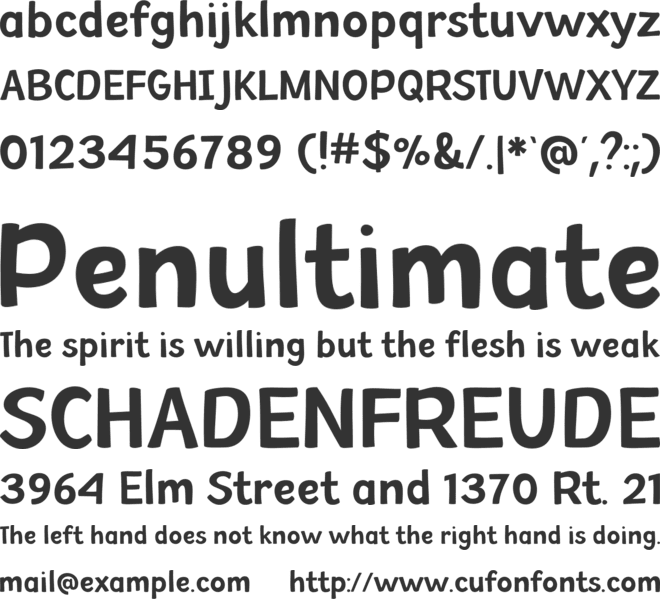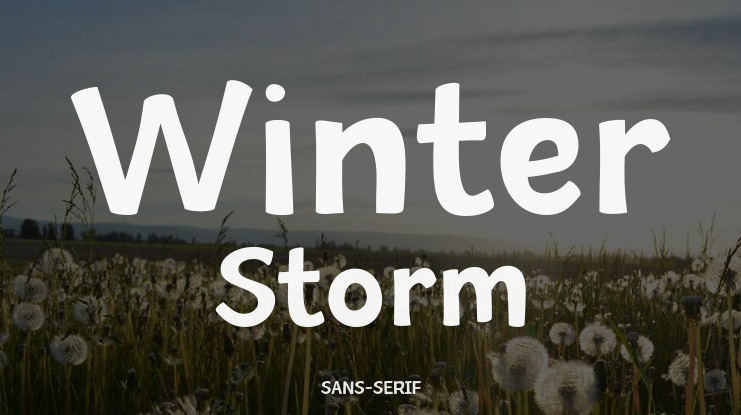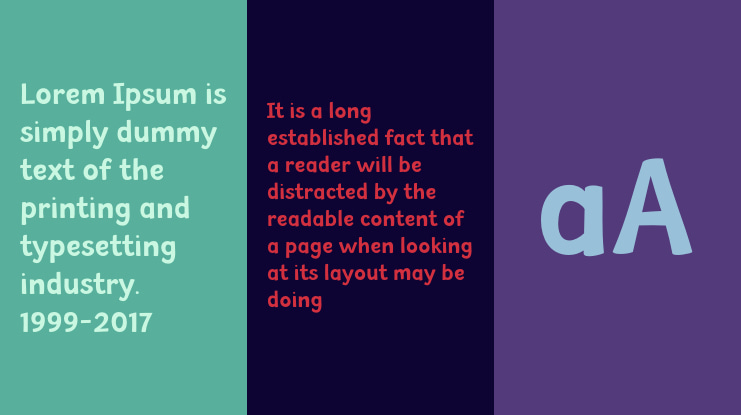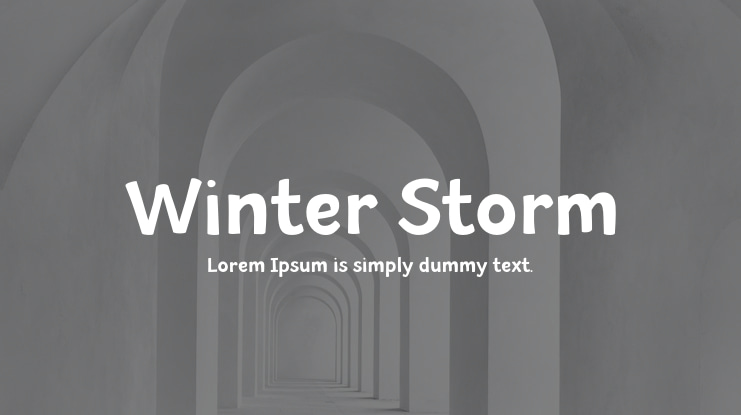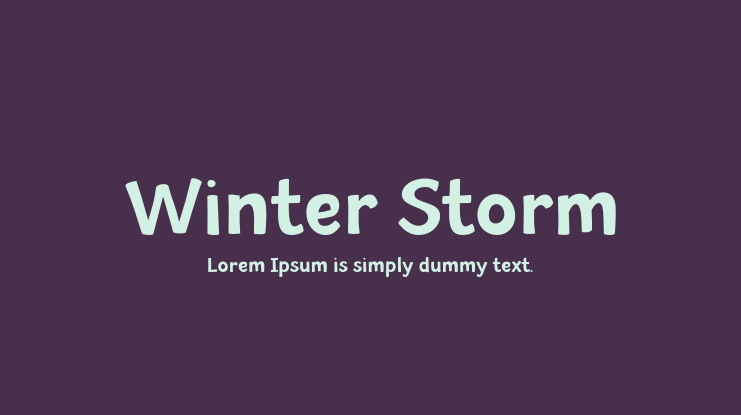
Winter Storm Font
Winter Storm is a stunningly whimsical sans-serif typeface that is sure to enchant your audience. This font is perfect for those who want to add a little bit of magic and wonder to their designs. The playful and flowing curves of the letters evoke a sense of fun and excitement, while the clean and modern lines ensure that the font remains easy to read.
Winter Storm is incredibly versatile and can be used for a wide variety of applications. Whether you’re creating a logo, designing a website, or putting together a brochure, this font is sure to add a touch of charm to your project. Its unique style is perfect for those who want to stand out from the crowd and create something truly special.